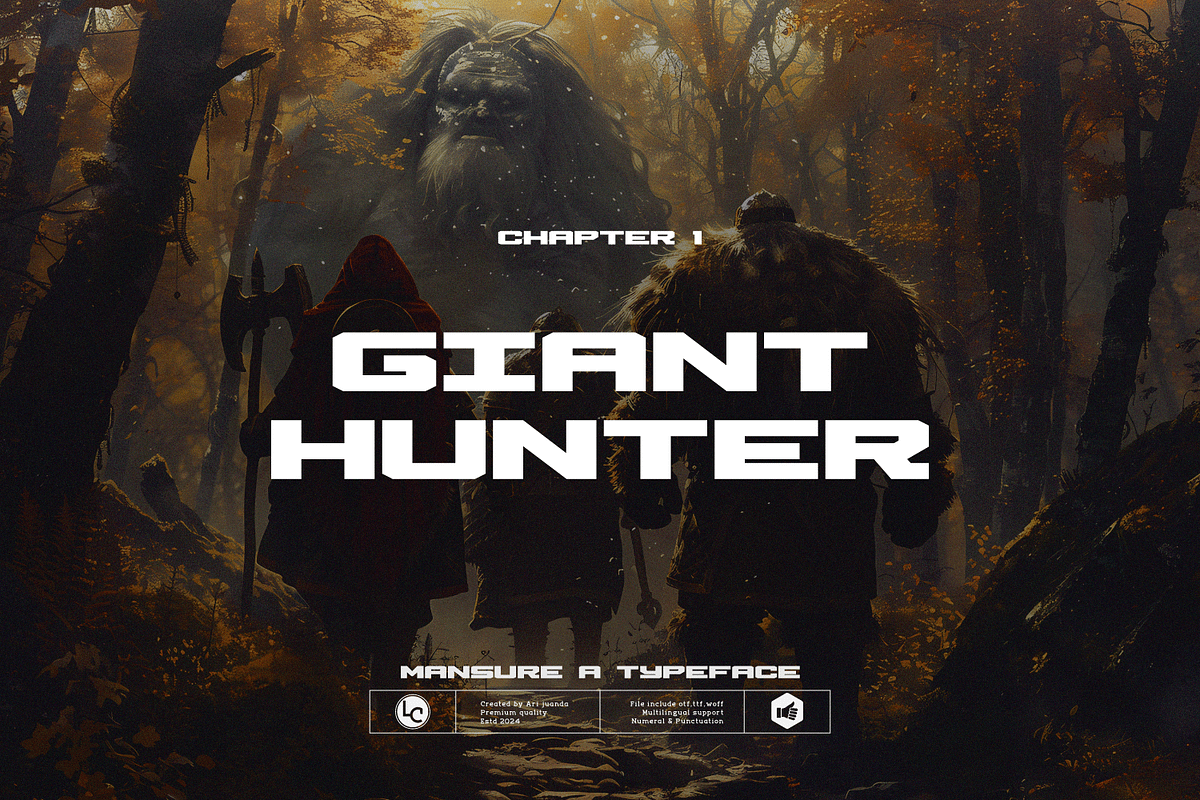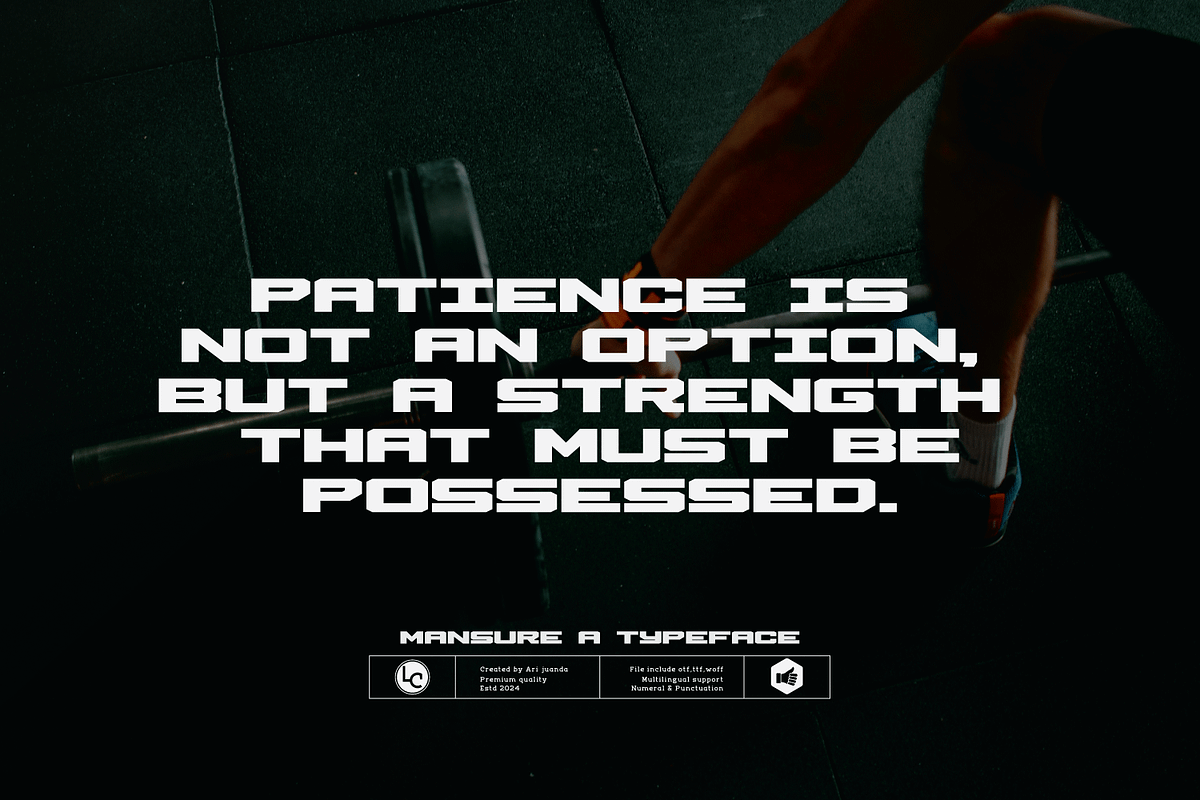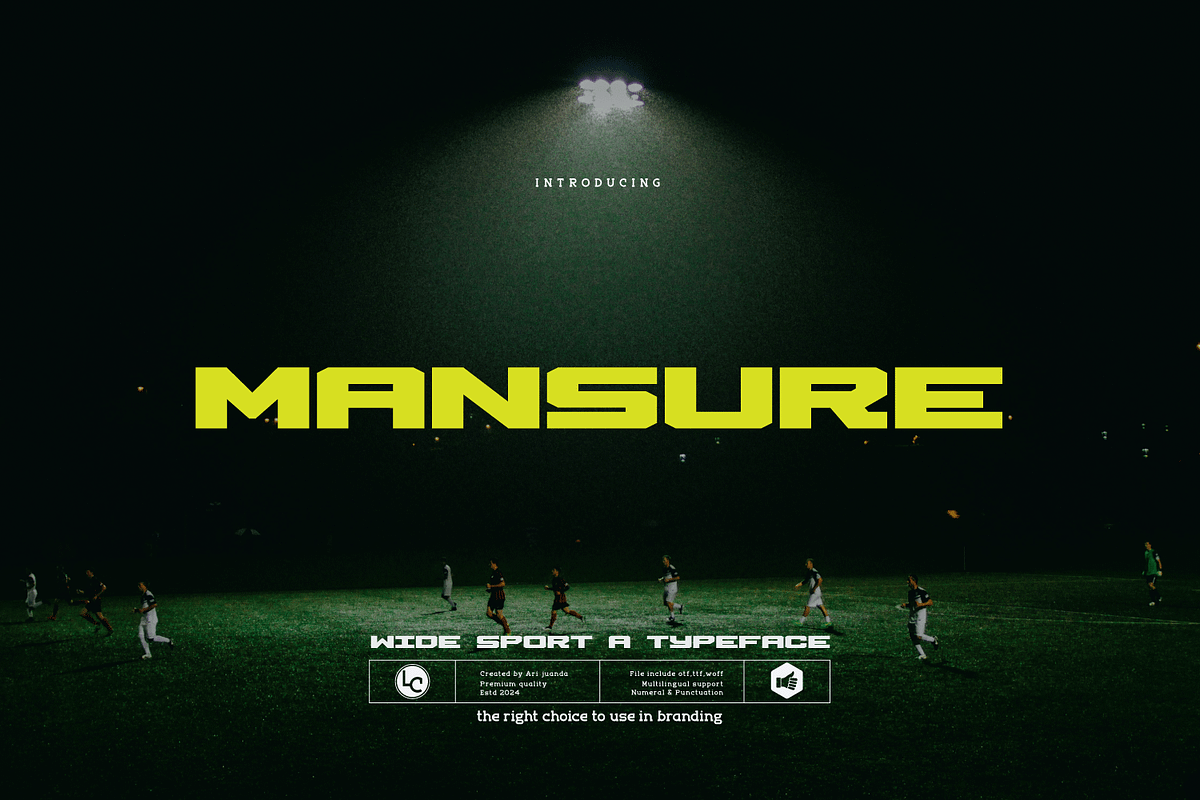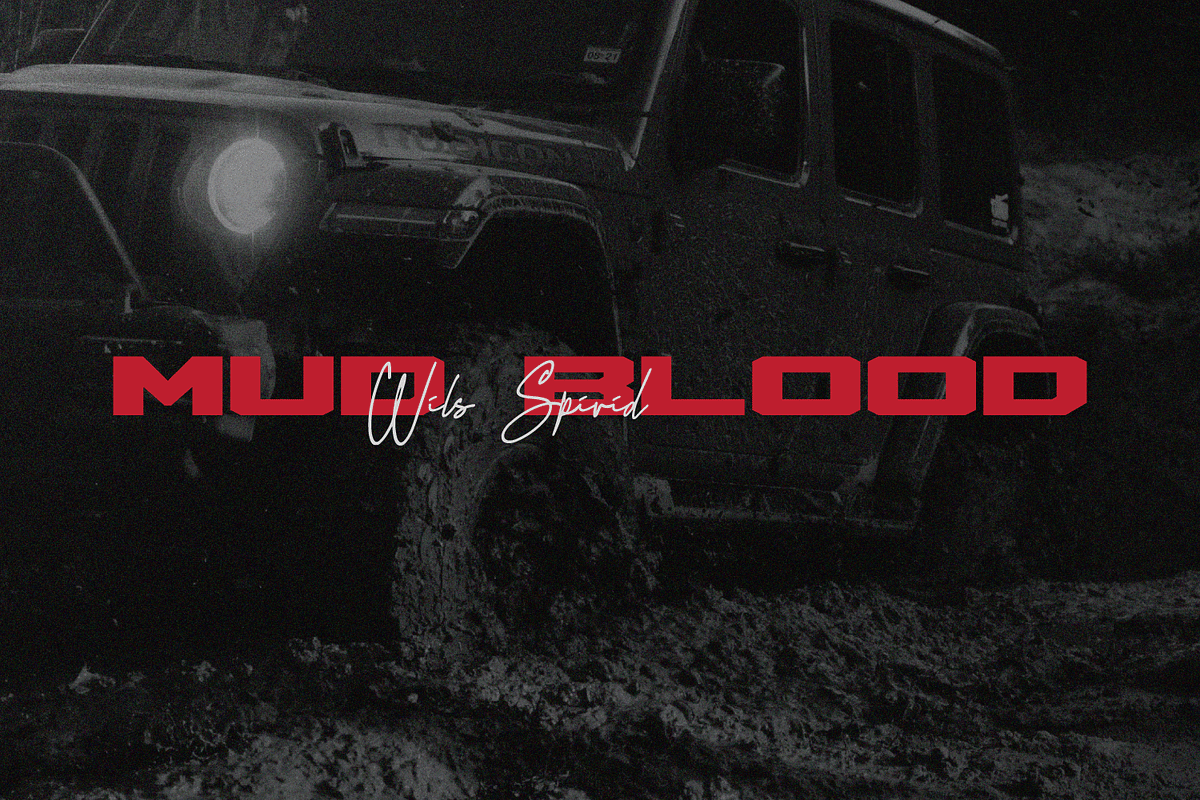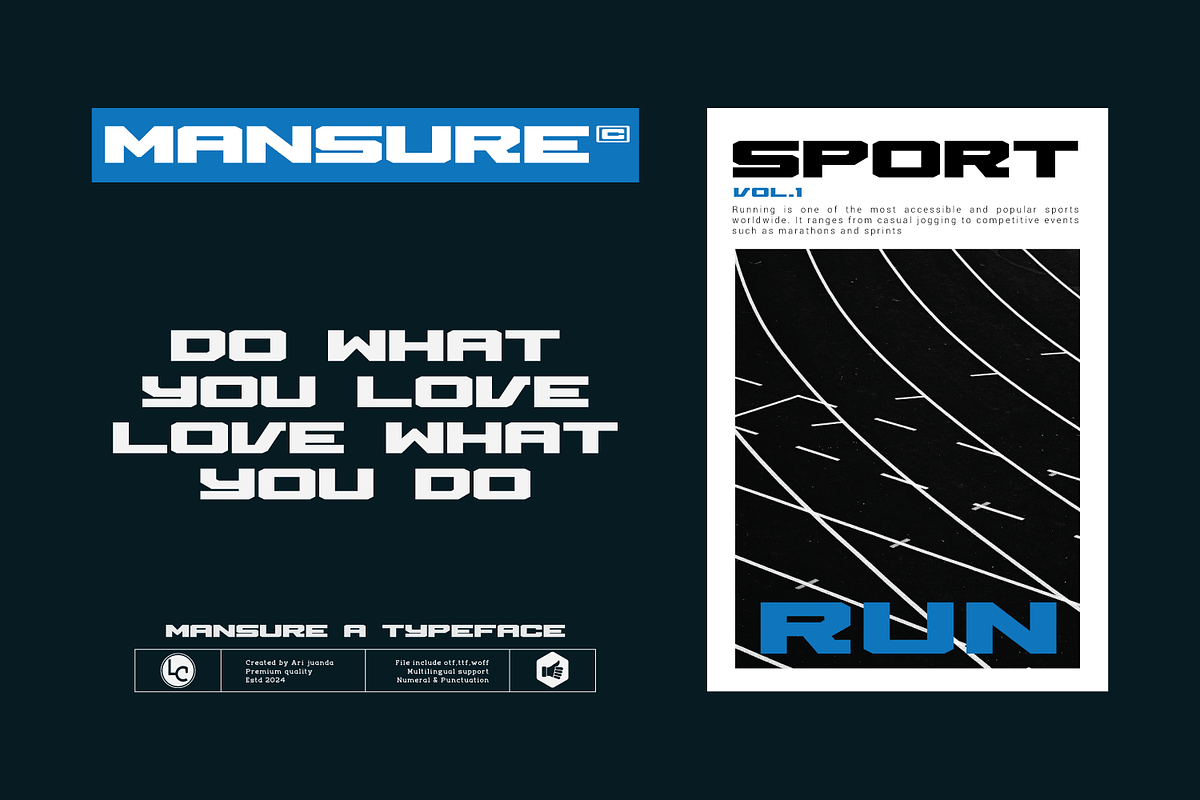
Mansure
Introducing the Mansure font, a wide sport typeface. This font is designed to convey the impression of sport, strength, and contemporary style, making it ideal for sports, sci-fi, futuristic and other themes.